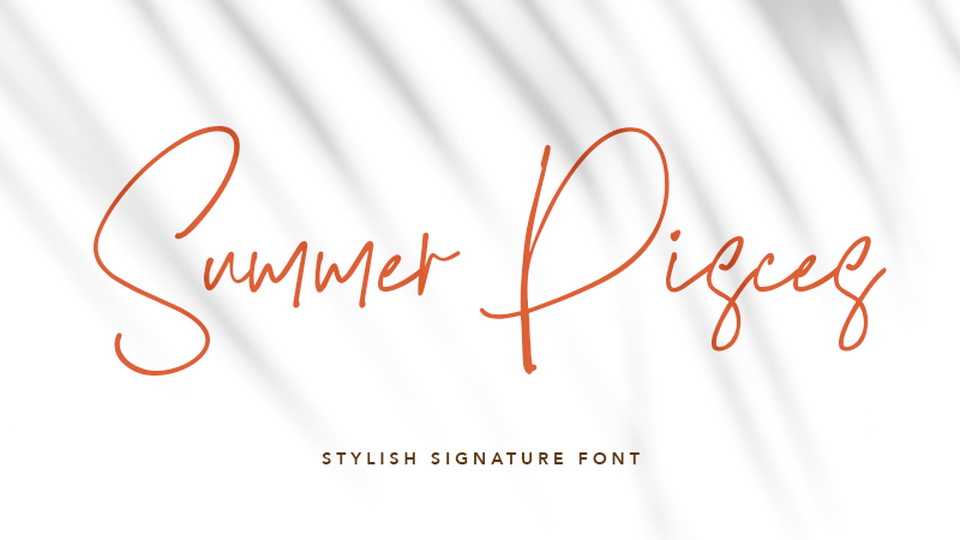
Download Summer Pieces font, a stylish signature typeface designed with an incredibly minimalist feel. Summer Pieces would perfect for a signature font, wedding invitation, social media posts, quoted text, photography, fashion, boutique, and any beauty or feminine projects.
Designer: Peterdraw